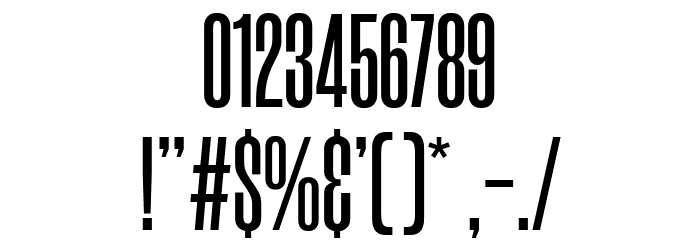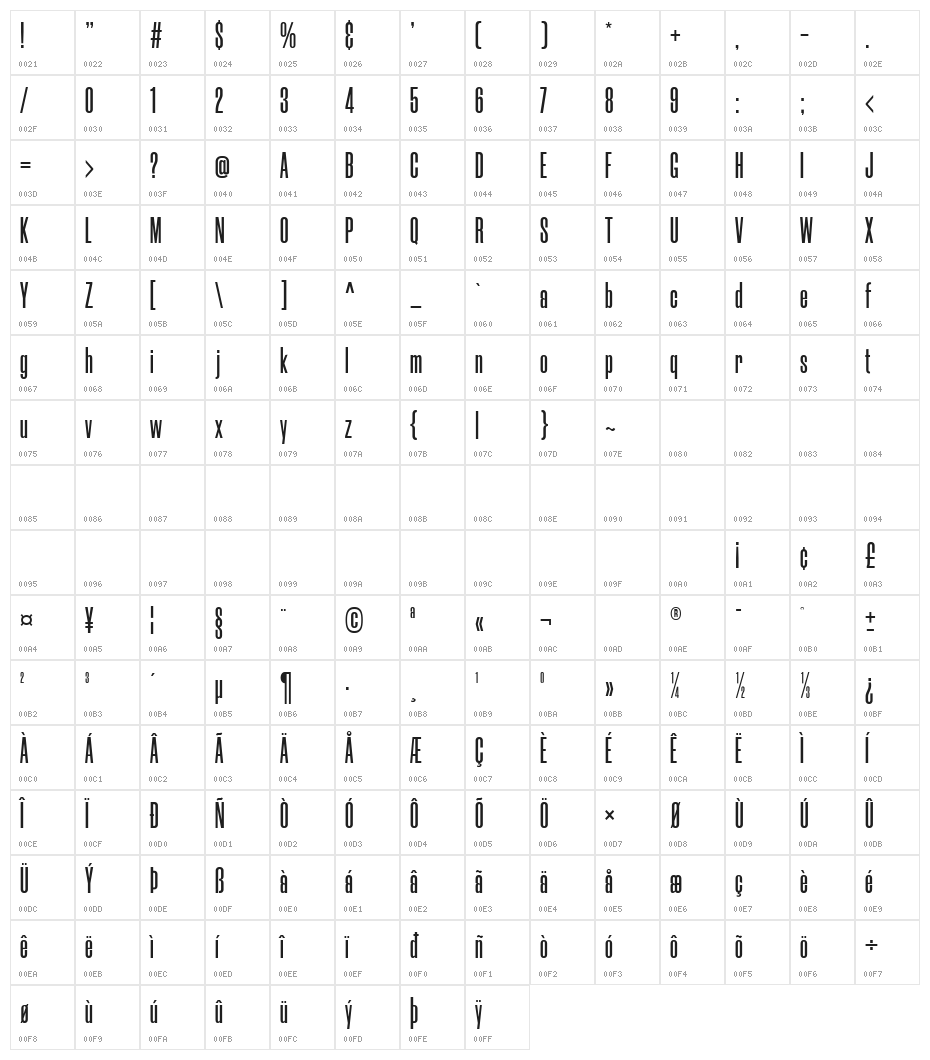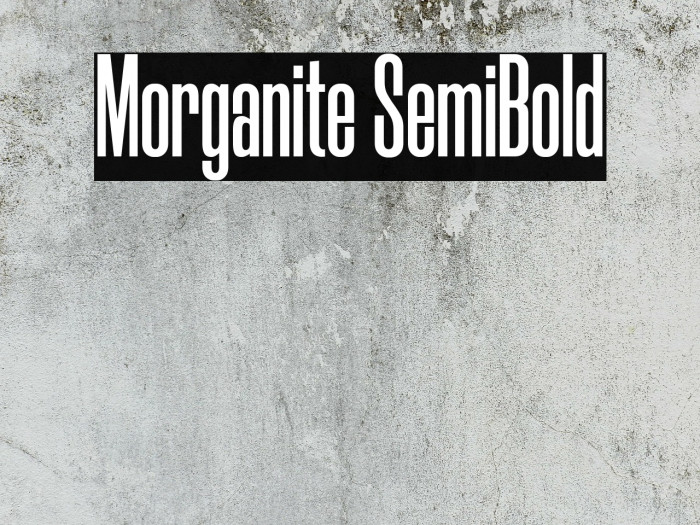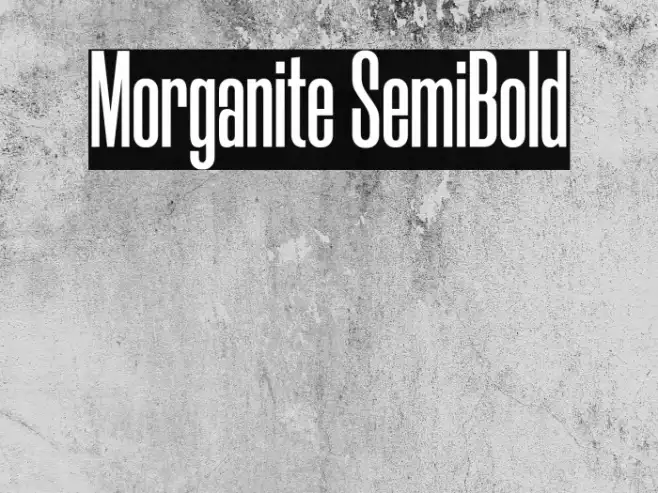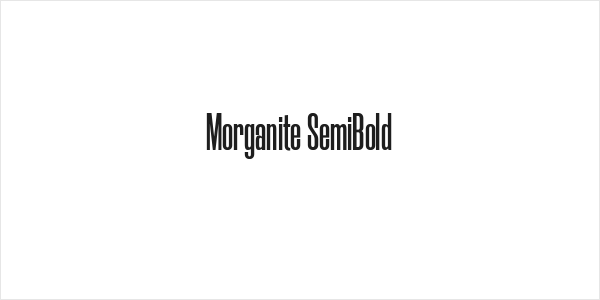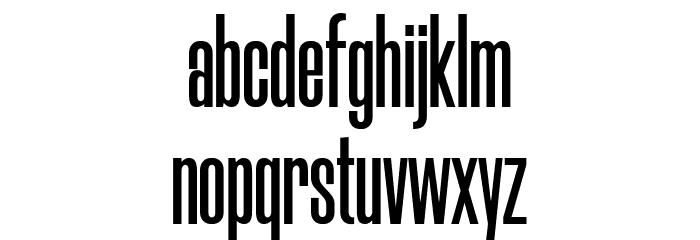
Morganite SemiBold Description
This font features a bold and modern sans-serif style with a strong presence. The characters are tall and narrow, giving it a condensed appearance that is both sleek and contemporary. The uppercase and lowercase letters maintain a consistent height, contributing to a uniform look. The numerals are clear and distinct, while the special characters are well-defined, ensuring readability across various applications. The overall design is clean and minimalistic, making it suitable for a wide range of design projects.
| Proposed Projects | Ideal for headlines, posters, branding, and advertising where a strong visual impact is needed. |